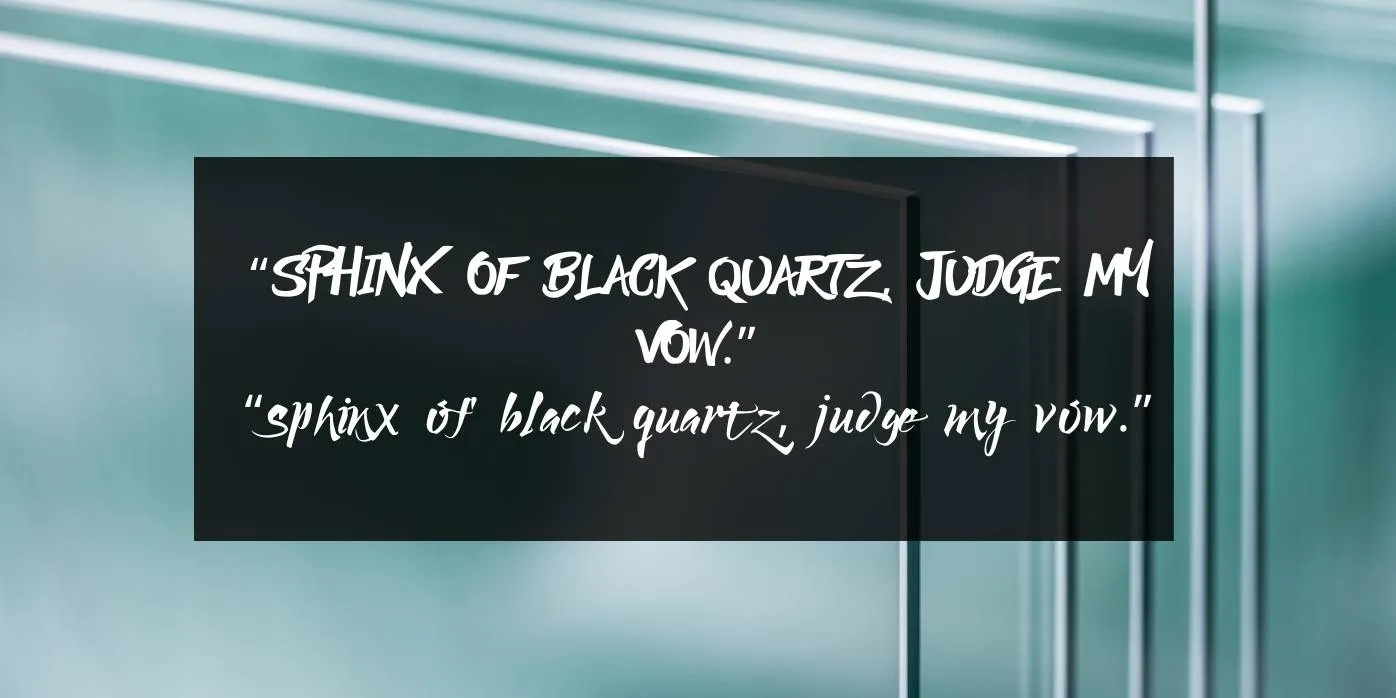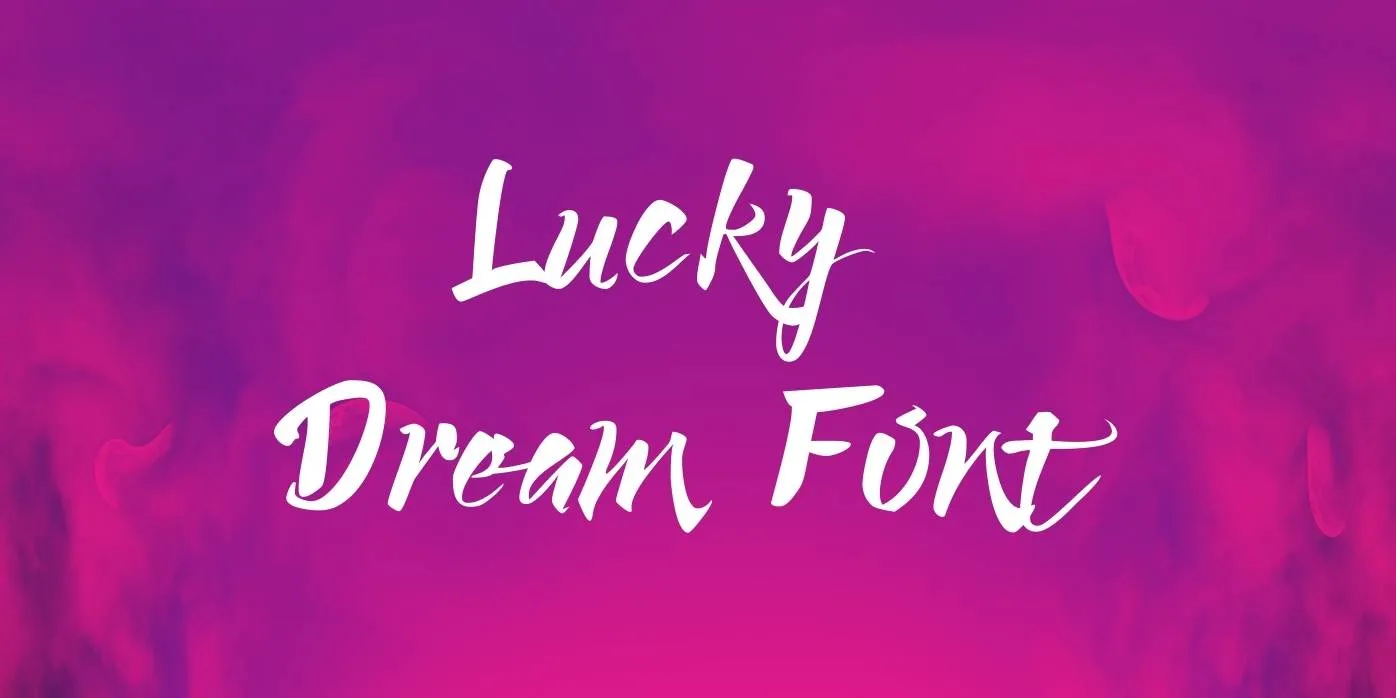
Lucky Dream Font
In this post, we introduce a classy font family that is known by the name Lucky Dream Font. This stylish typeface belongs to the Script family. The designer of this typeface was Mindtype foundry. The lucky dream Typeface was created on 29 July 2017.
Lucky Dream Typeface is an incredibly beautiful and elegant Typeface family that consists of a single regular style. This unique typeface has been created with a lot of hard work and dedication. Its copy and paste function is suitable for different designs. You can use it for Adobe.
It features amazing readability and supports a wide range of languages. The lucky dream Typeface supports up to 21 different languages including English, Spanish, French, German, Italian, etc. You can use Westchester font which has the same style and characters like this one. This stylish typeface is perfect for various design projects such as logos, branding, invitations, quotes, website headers, product packaging, etc.
Lucky Dream Typeface is available in both uppercase and lowercase letters. It also includes numbers and punctuation marks.